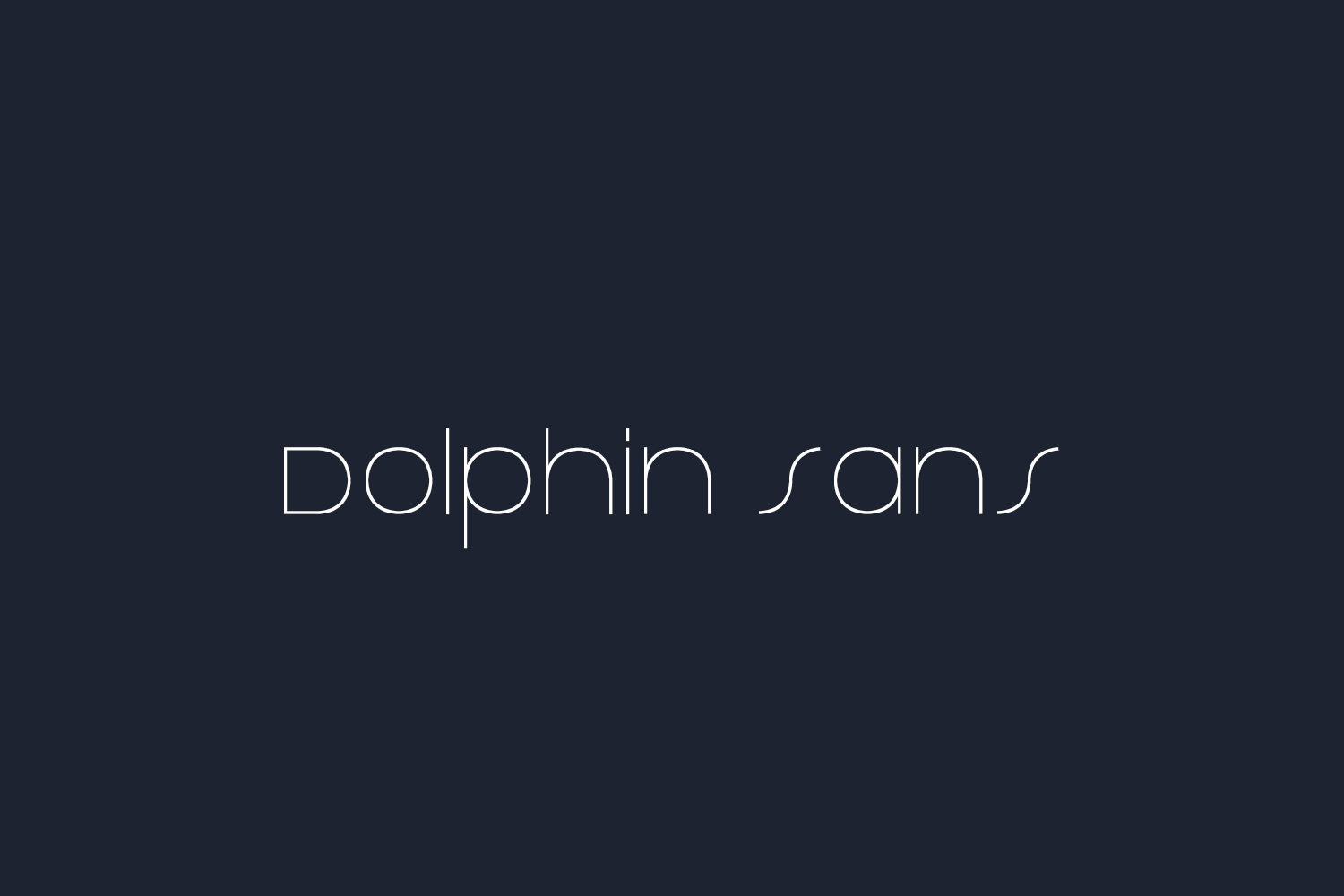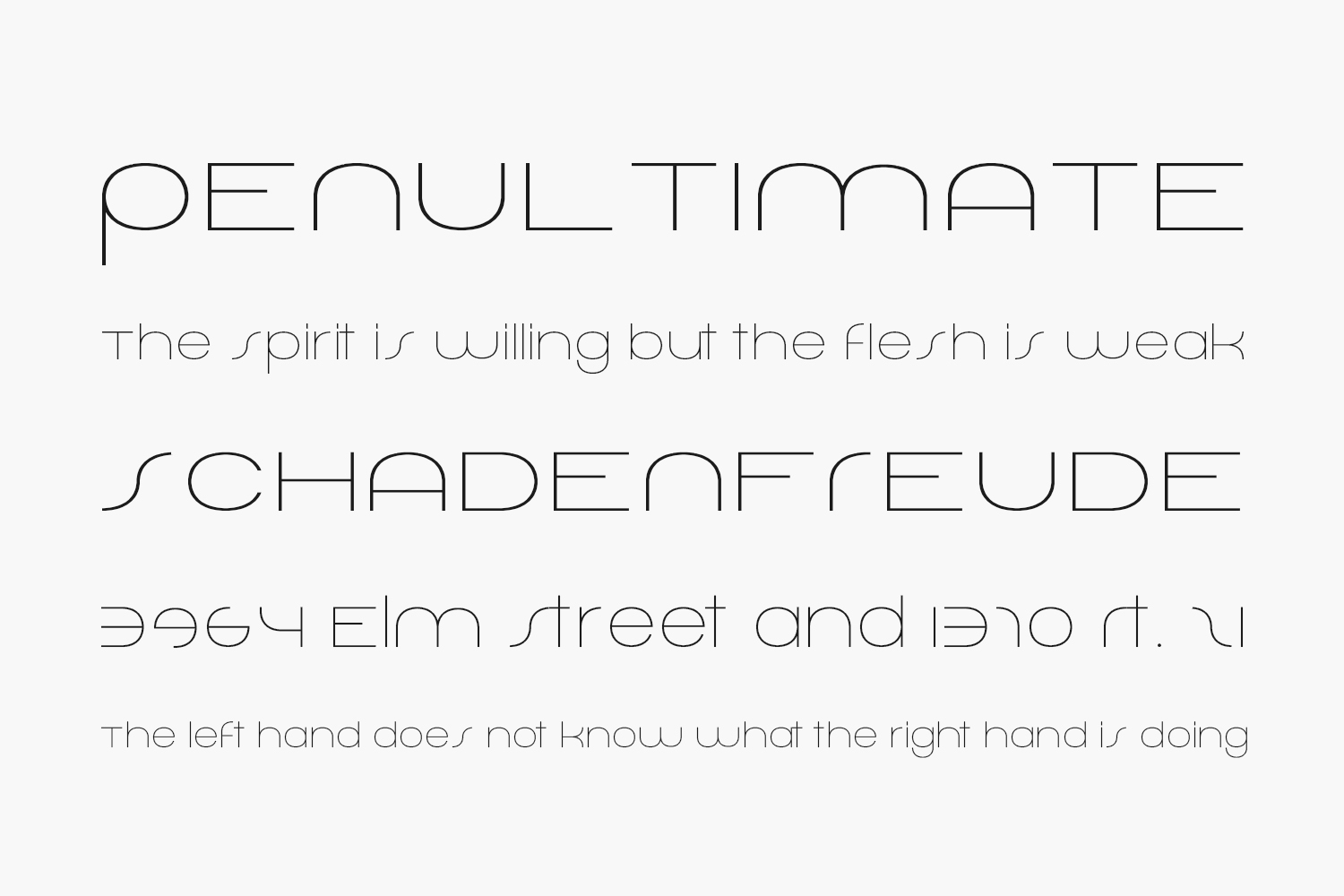
Dolphin Sans Free Font is a thin, clean, fresh geometric sans with no-nonsense. Free for both personal and commercial use.
Designed by FontBlast Design